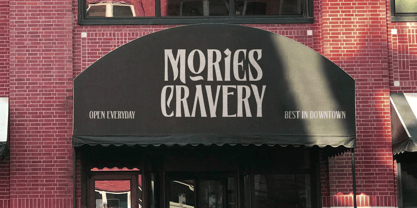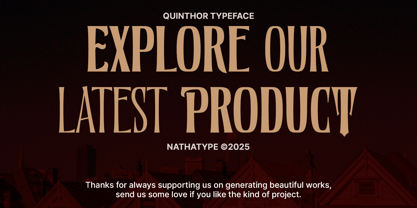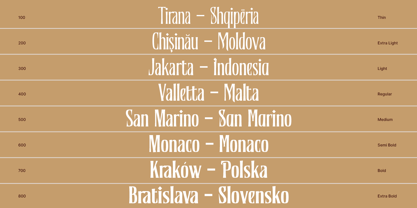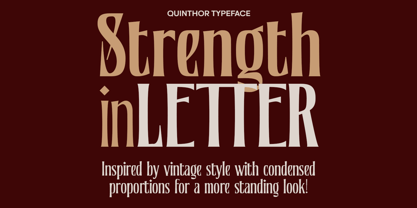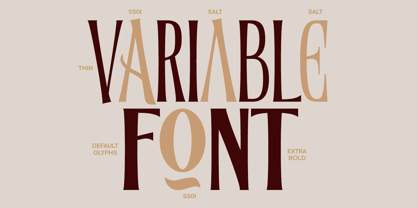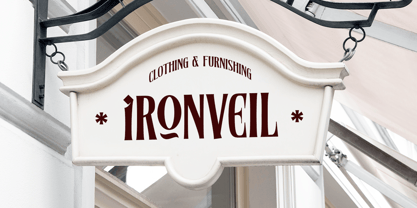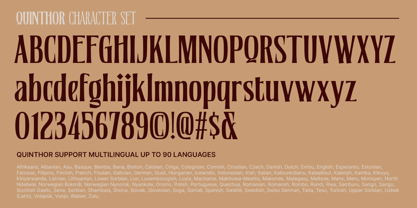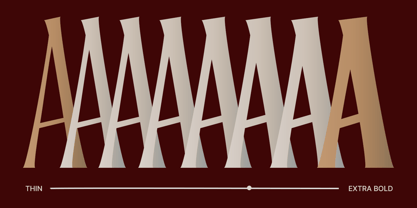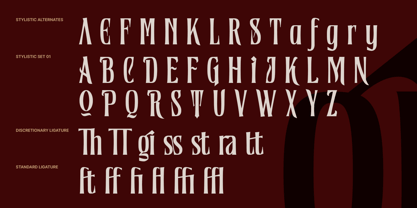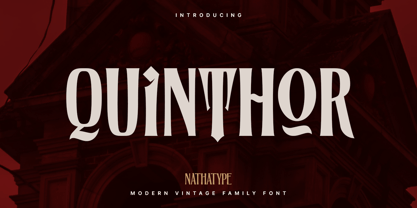
Quinthor
by Nathatype
Quinthor is a vintage-inspired font family that revives the ornate elegance of Victorian-era typography. Designed in striking all-capital letters, it offers eight versatile weights, from refined light forms to commanding bold styles. Its detailed letterforms balance decorative charm with bold readability. With its wide range of weights, Quinthor adapts seamlessly to both classic Victorian vibes to modern design. In addition, enjoy the features here.
Features:
• Stylistic Sets
• Ligatures
• Multilingual Supports
• PUA Encoded
• Numerals and Punctuations
Quinthor fits in branding, packaging, logos, posters, headlines, and many more designs. Find out more ways to use this font by taking a look at the font preview.